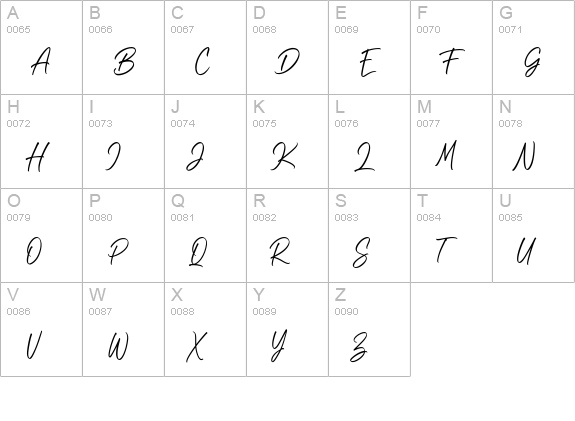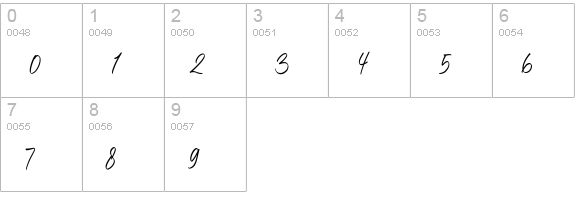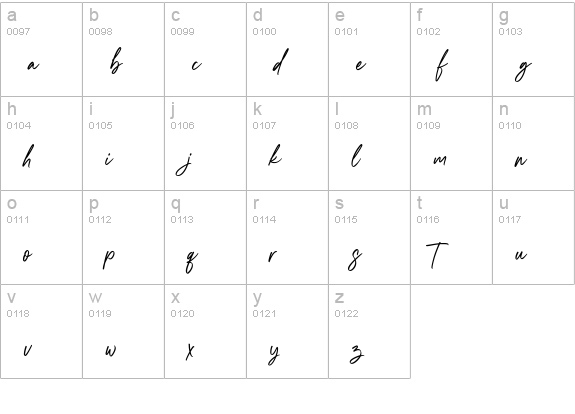
Southland Letter Handwritten Font Font Details
Southland Letter Handwritten Font is a free for personal use font in the Script > Handwritten category, designed by hanzel_space. It has been downloaded 19 times and is available for Windows, Mac and Linux.
Introducing Southland Letter Handwritten Font, a charming and versatile typeface that exudes a sense of warmth and authenticity. With its elegant handwritten style, Southland Letter is perfect for adding a personal touch to your designs, whether for invitations, branding, packaging, or social media graphics.
This beautiful font features a mix of smooth curves and unique letterforms that give it a distinctive and playful look. Its flowing script lends a sense of fluidity and grace to any project, making it an ideal choice for those seeking a touch of whimsy and sophistication.